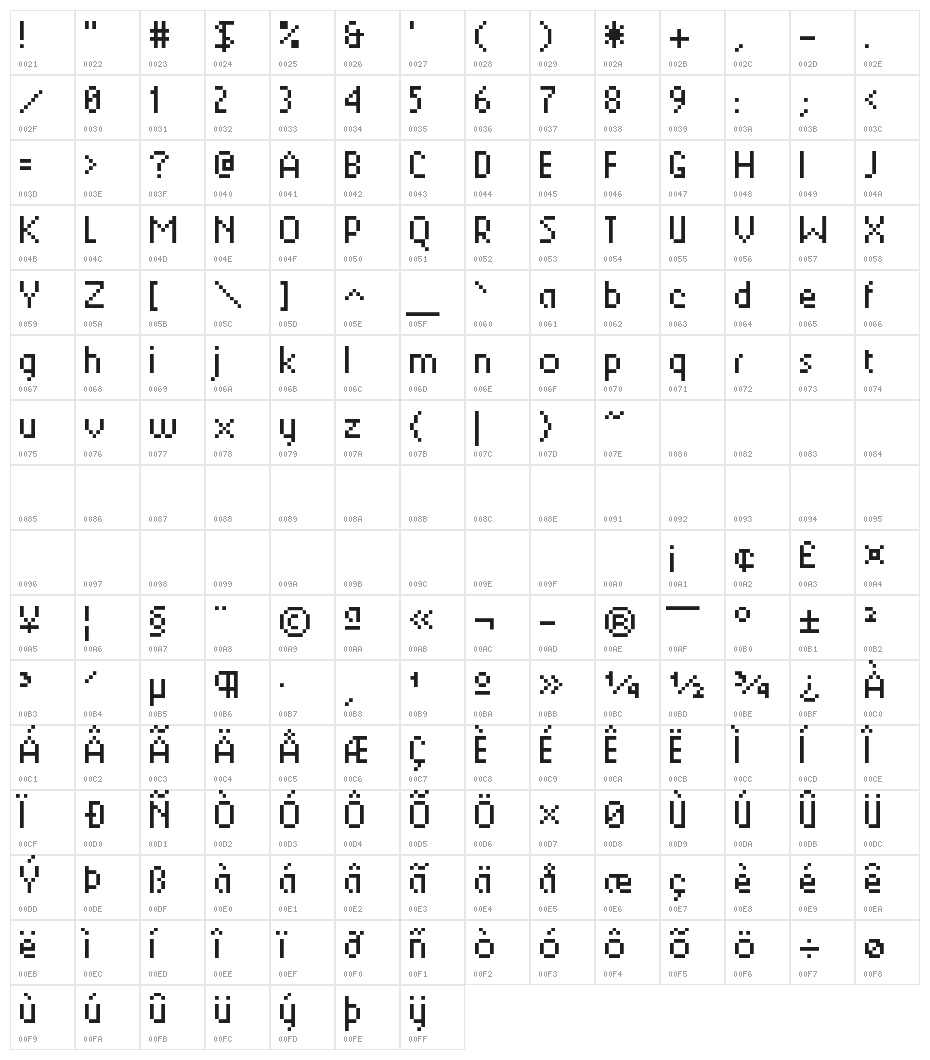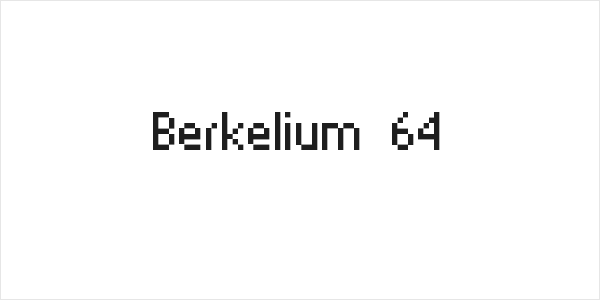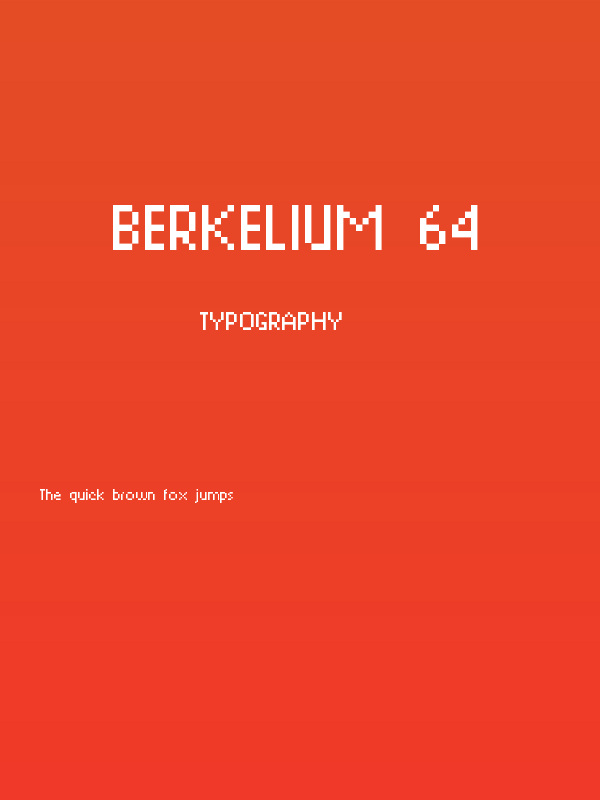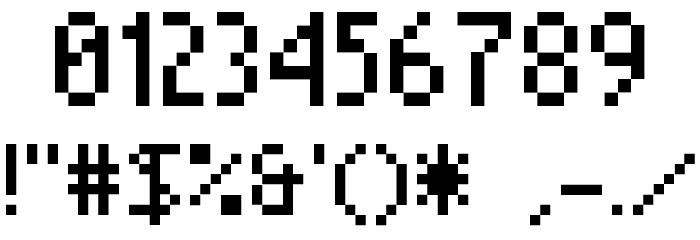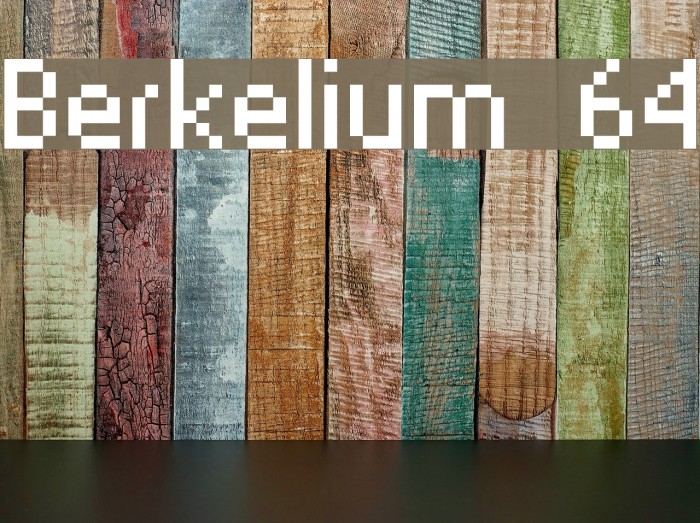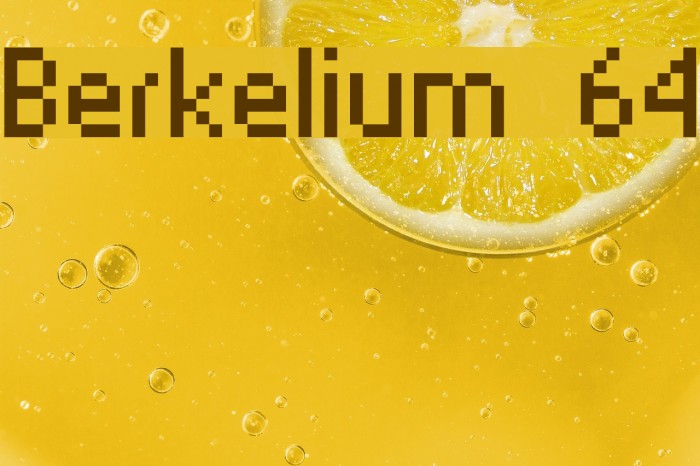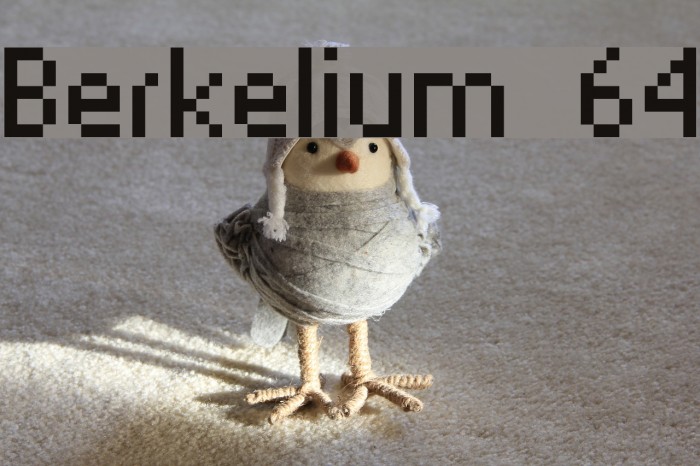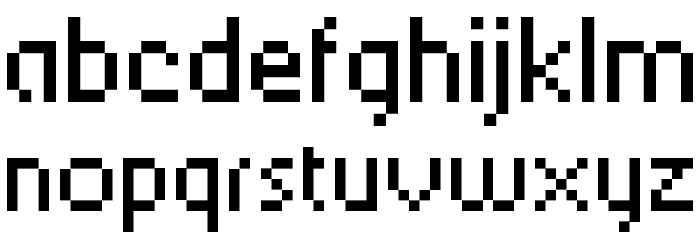
Berkelium 64 Font
Berkelium 64 Description
This font features a pixelated, blocky design reminiscent of early digital displays and retro video games. Each character is composed of small square blocks, creating a distinct, grid-like appearance. The uppercase and lowercase letters maintain a consistent height, contributing to a uniform and cohesive look. The numerals and special characters follow the same pixelated style, ensuring visual harmony across all elements. The font's simplicity and geometric precision make it ideal for projects that require a nostalgic or digital aesthetic.
| Use Case | Logos, Headlines, Digital Art |
| Proposed Projects | Ideal for retro video game designs, digital art projects, and any creative work that seeks to evoke a sense of nostalgia for early computing and gaming eras. |